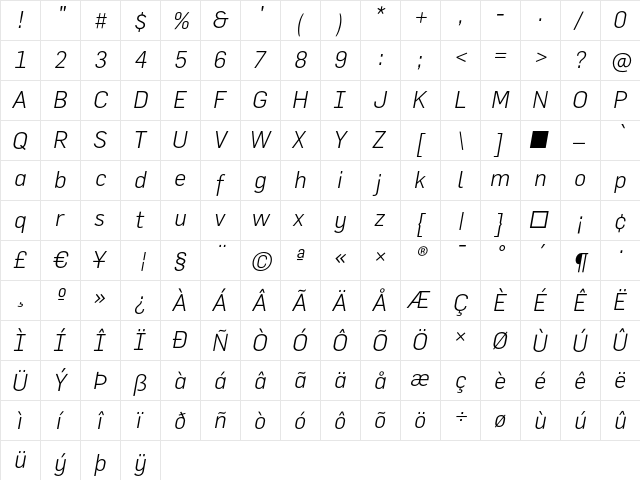
FlamaLight Italic Font Preview
Design Context for FlamaLight Typeface
FlamaLight offers clean, dependable letterforms without strong stylistic allegiance, making it a practical choice for designers who need flexibility. Its italic angle brings a sense of urgency and motion to the letterforms. The delicate stroke weight brings airiness and refinement to layouts.
Pro Tip: Try FlamaLight for annotation and caption copy alongside an upright companion — the contrast in angle creates a dynamic but ordered typographic system.